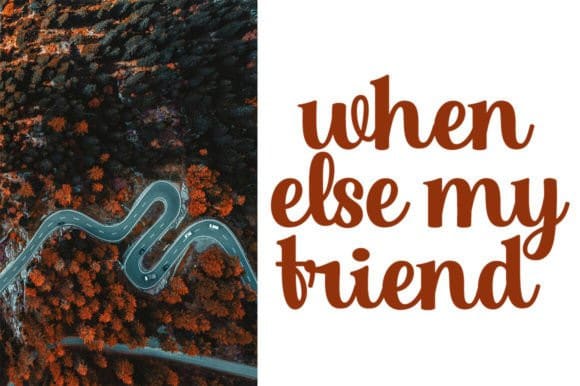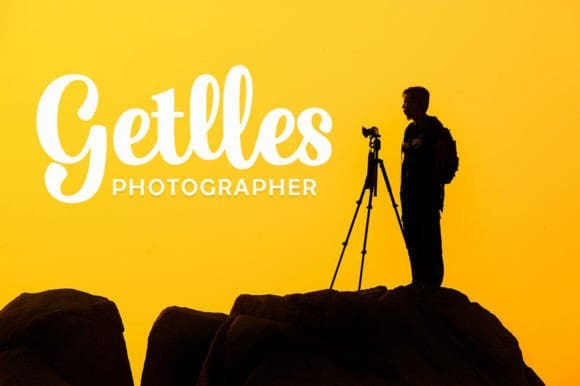
Getlles Script Font
Getlles Script Font is more than just a typeface; it’s a charismatic dance of letters that brings a touch of elegance and personality to any design. This bold script font exudes a sense of effortless sophistication and creative flair. Each letter flows gracefully into the next, creating a seamless and harmonious look that captures the eye and engages the viewer.
Ideal for branding, invitations, and any project that requires a personal and stylish touch, Getlles Script Bold strikes a perfect balance between modern chic and classic charm. Its bold strokes and intricate curves add a sense of drama and impact, making it ideal for headlines, logos, and signature designs. Whether you’re aiming to evoke nostalgia or make a bold statement, Getlles Script Bold is your go-to choice for adding a distinctive, handcrafted vibe to your work.